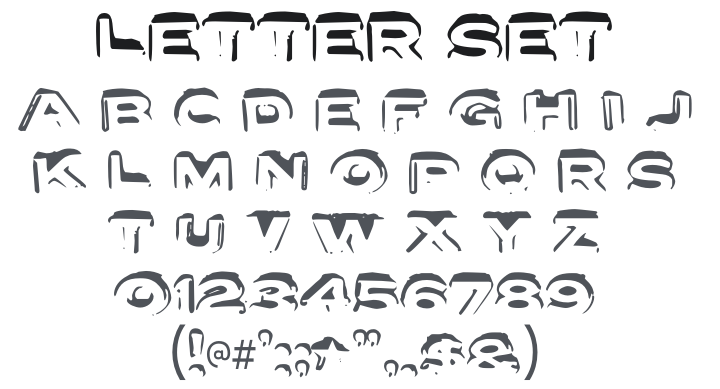
Letter Set Font Family
About Letter Set
Letter Set is a bold, blocky display typeface family of three layerable files inspired by the plastic ceramic press-on letters used to title 1960s home movies. Version A shows the raw letters with drips and cracks, B reveals their chunky outline structure, and C adds a shadow base with quirky animal and object silhouettes beneath each letter. Perfect for retro film aesthetics, novelty posters, nostalgic branding, and playful vintage designs.